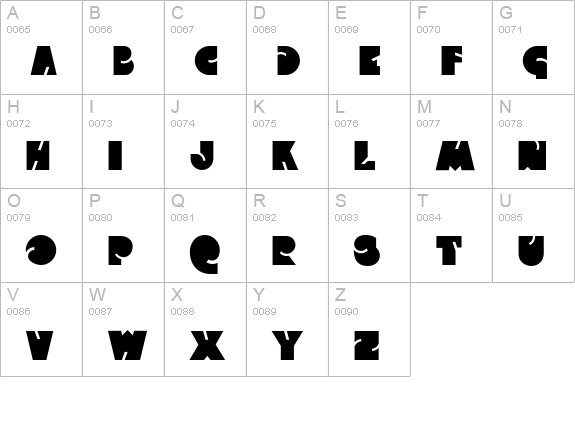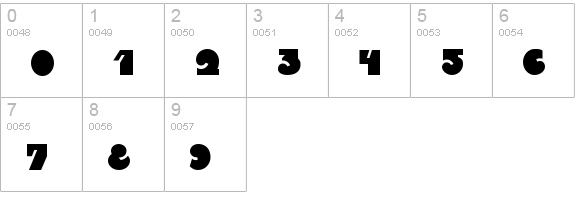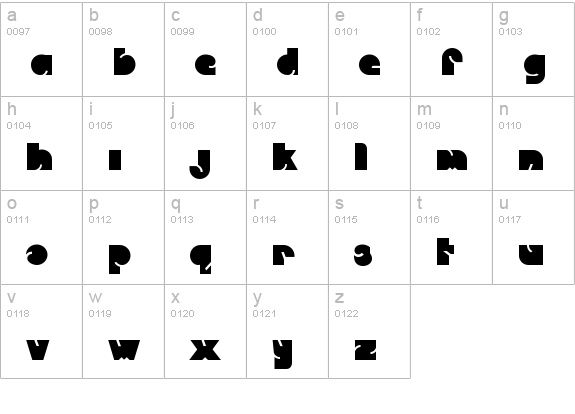
Qweckle Font Details
Qweckle font is a modern and stylish typeface that is sure to make a statement in any design project. With its sleek lines and bold letterforms, Qweckle font exudes confidence and sophistication. Whether you're designing a logo, creating a branding package, or crafting a visually stunning website, Qweckle font is the perfect choice to elevate your design to the next level. What sets Qweckle font apart is not only its stunning aesthetics, but also its versatility. It is suitable for a wide range of design purposes, from headlines and titles to body text and captions. Its legibility and readability make it a go-to font for both print and digital projects. But what makes Qweckle font even more exceptional is that it is free! Yes, you read that right. Qweckle font is freely available to download at FontsMarket.com. This means that you can access this exceptional font without breaking the bank. It's a true gem for both professional designers and aspiring creatives who are looking to add a touch of elegance and uniqueness to their work. With Qweckle font, you can bring your creative vision to life with ease. Its wide range of weights and styles allows you to experiment and play around with different looks and feels. Whether you're aiming for a bold and impactful design or a more subtle and refined aesthetic, Qweckle font has got you covered. So why wait? Head over to FontsMarket.com and download Qweckle font today. Unleash your creativity and let Qweckle font be your secret weapon in creating stunning designs that captivate and engage your audience.